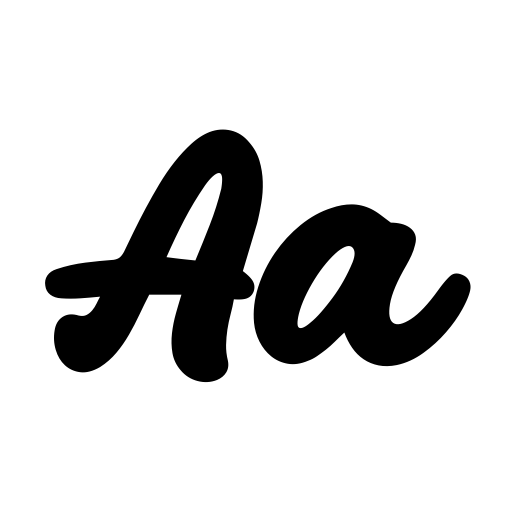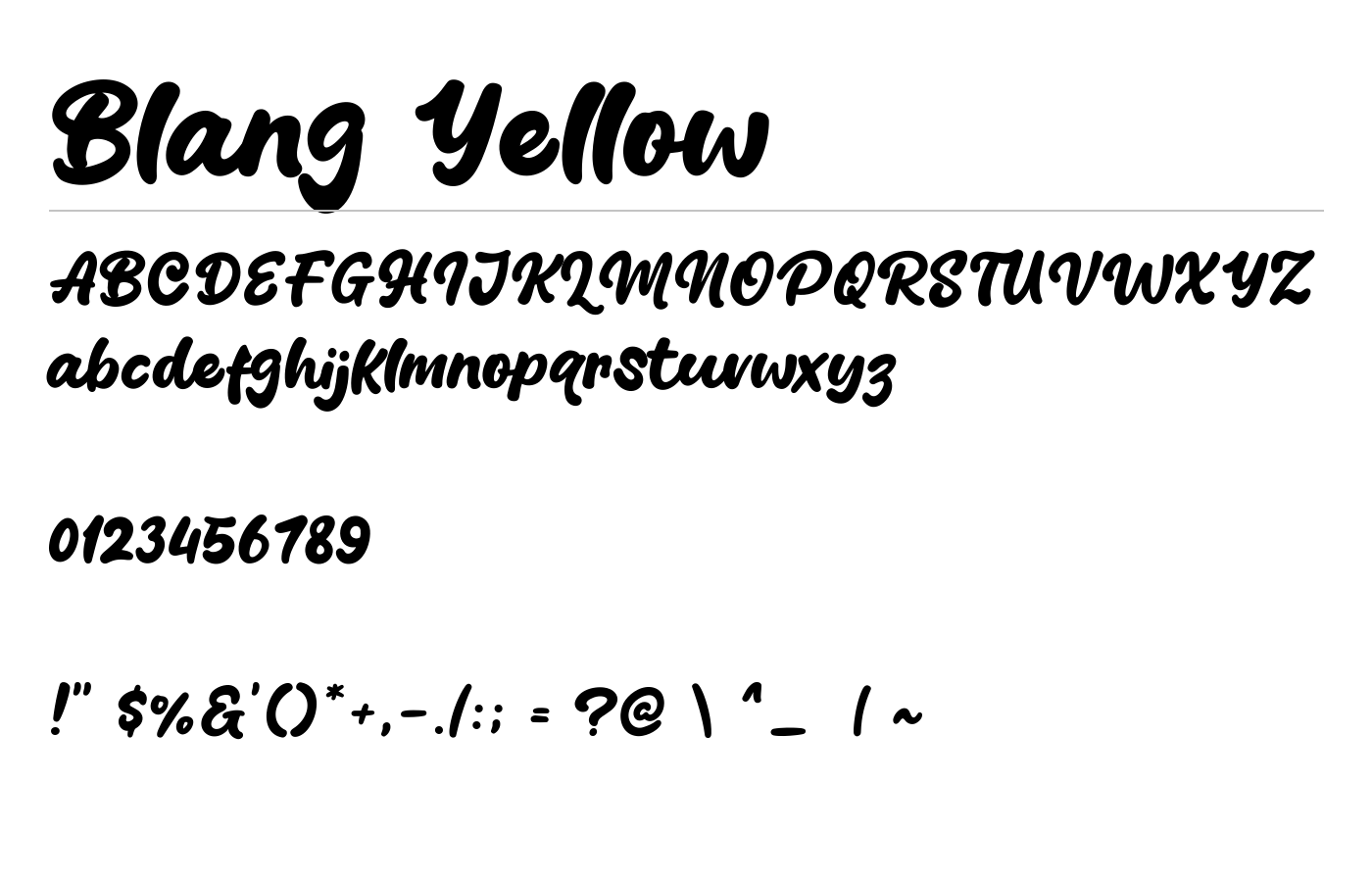
Blang Yellow is a bold, playful script font with a casual, hand-painted feel. Its rounded, fluid letterforms and moderate contrast give it a friendly and approachable personality, making it perfect for creative branding, packaging, and eye-catching headlines. This font adds a lively and informal touch that works well for fun, youthful designs needing a personal and energetic vibe.
Blang Yellow Font
About Blang Yellow Font